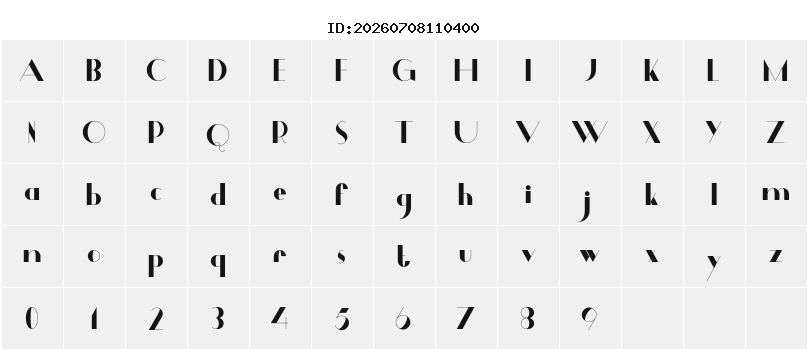
• Font Name: Dalmais
• Designer: Paulo R
About Dalmais.otf
Dalmais.otf is a modern, elegant sans-serif font designed for ultimate readability and visual harmony. Perfect for branding, headlines, web design, and print materials.